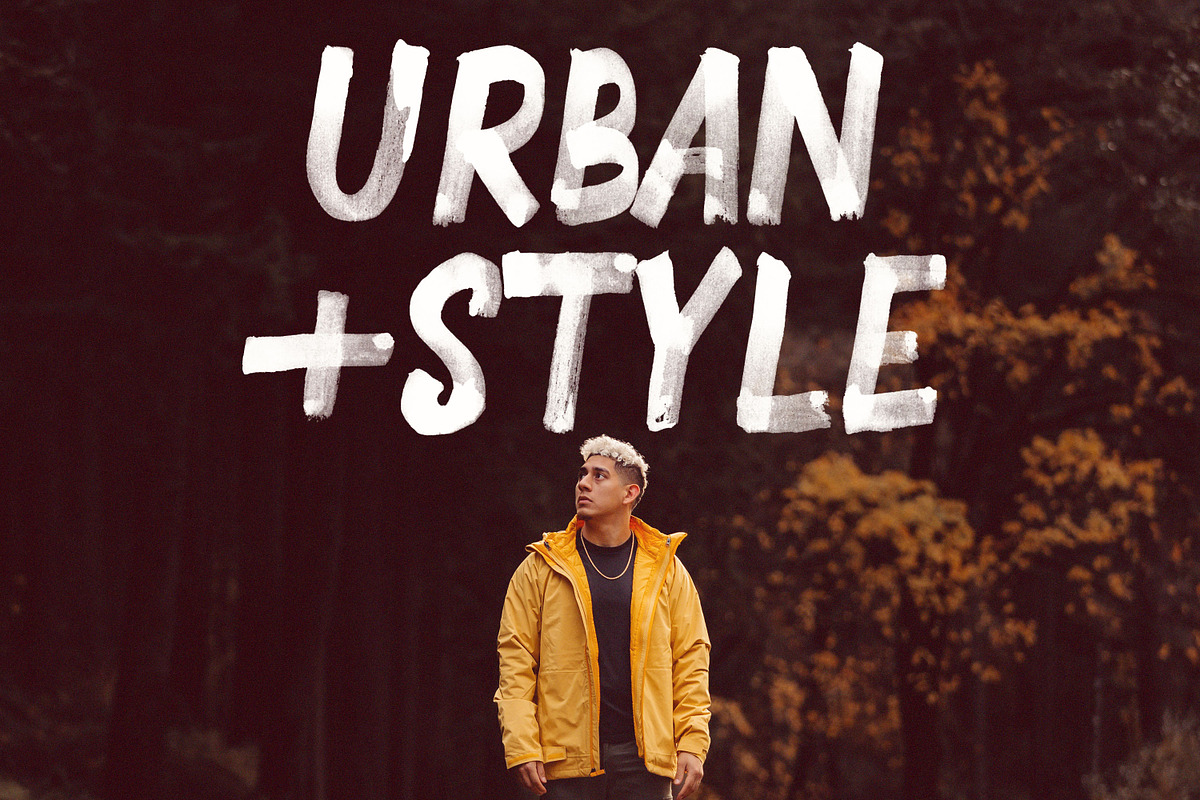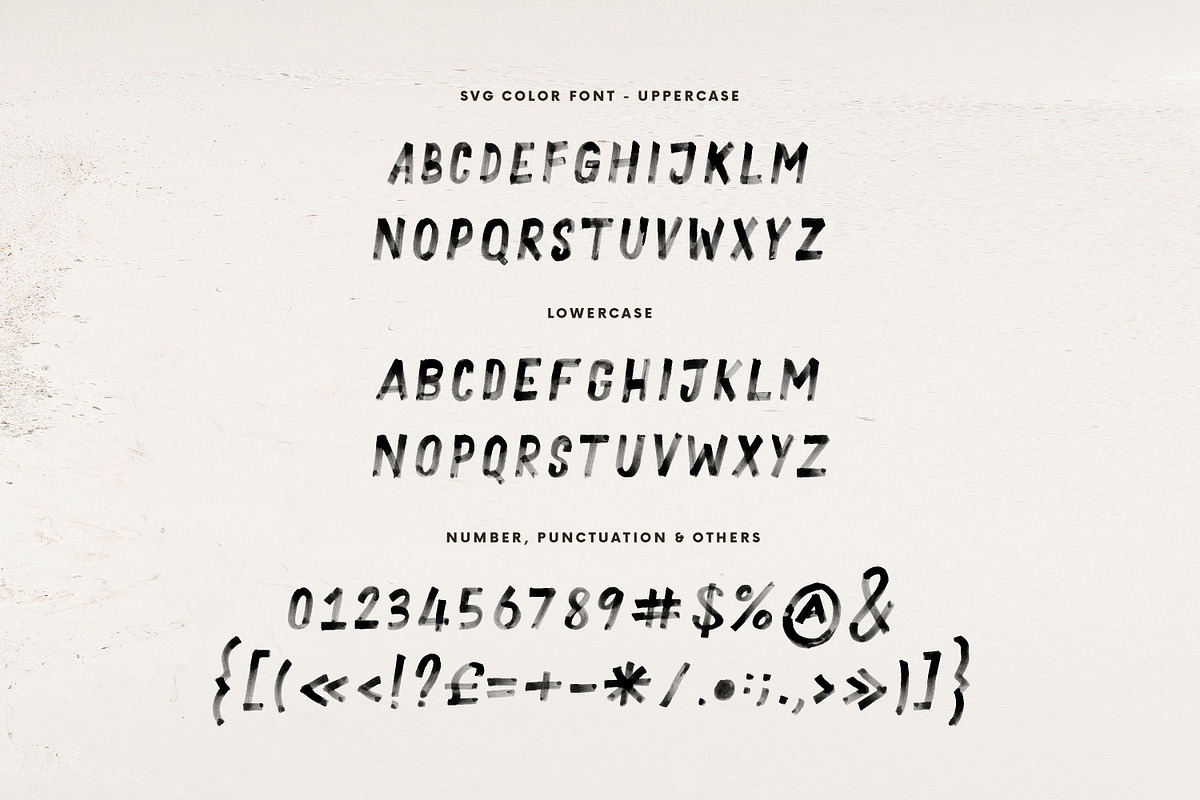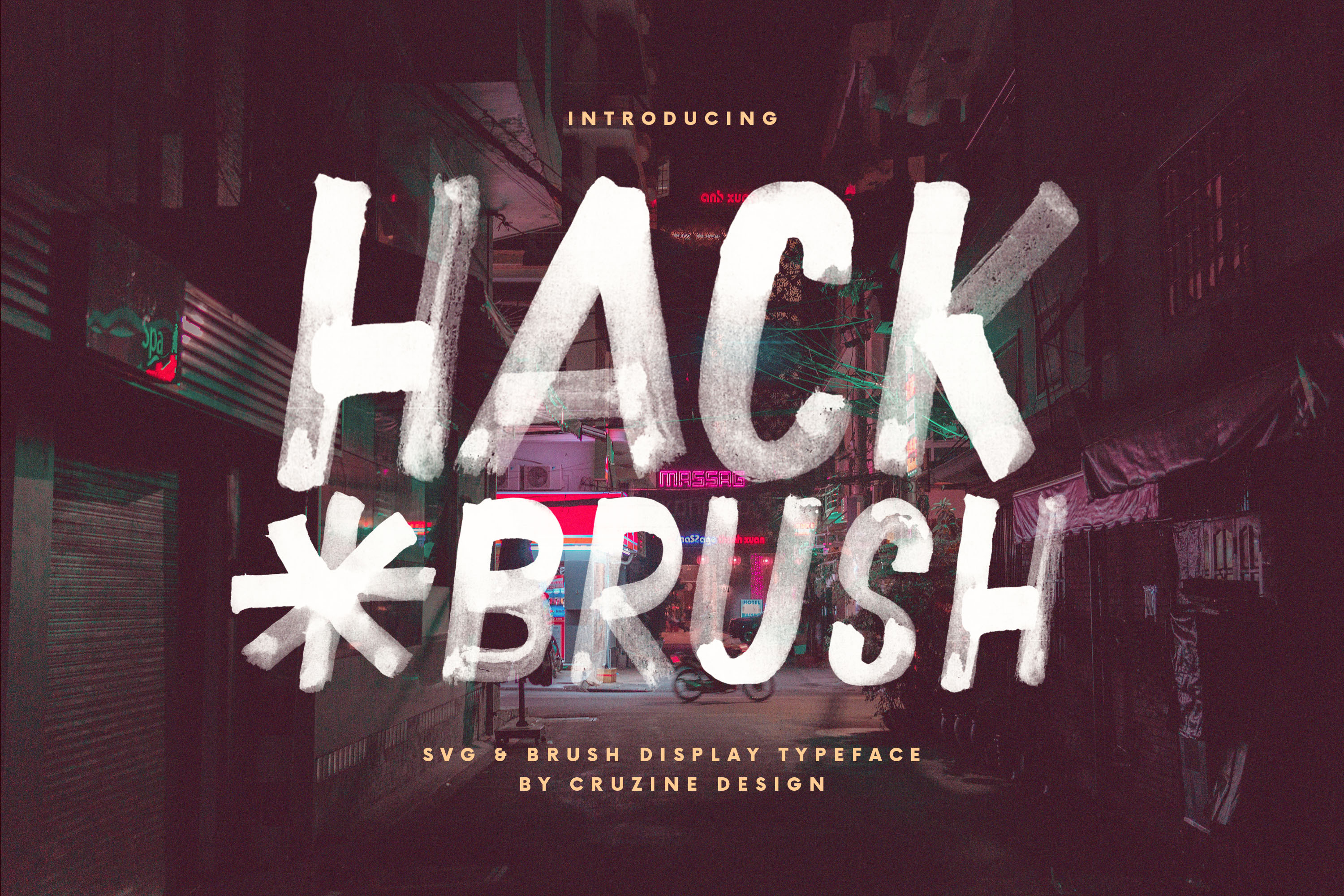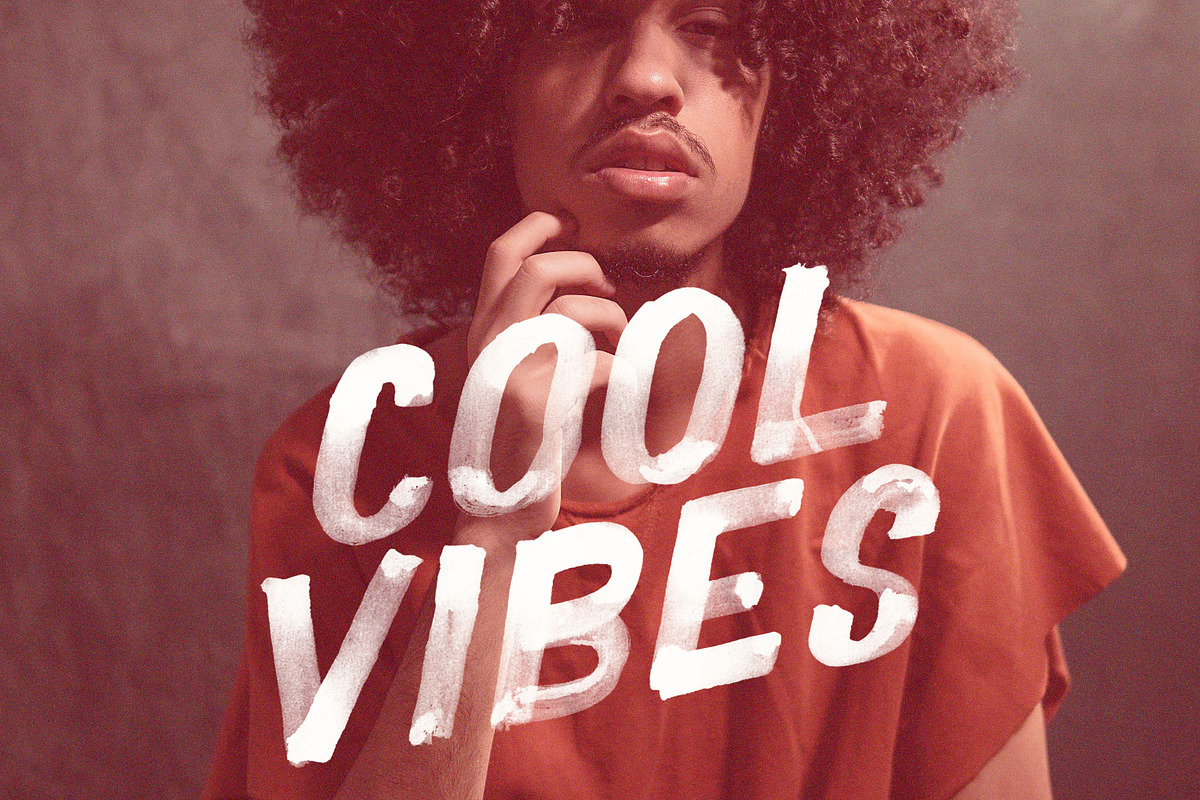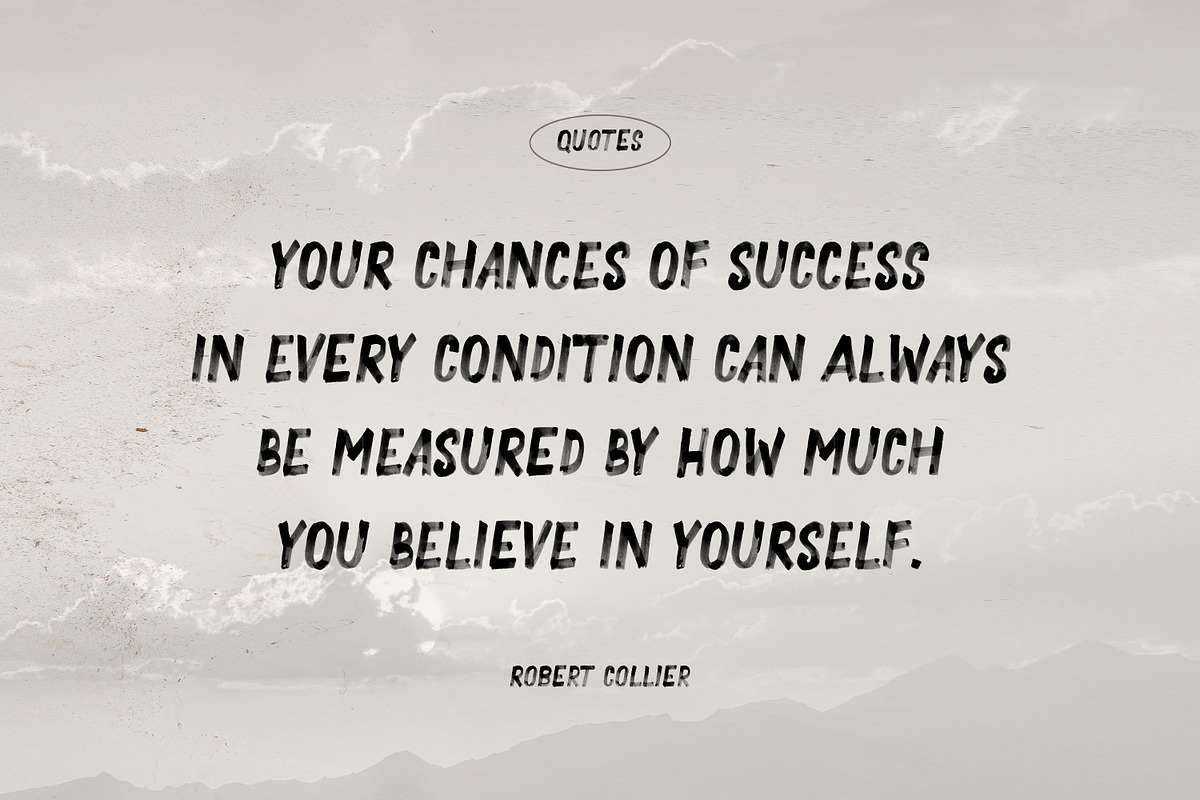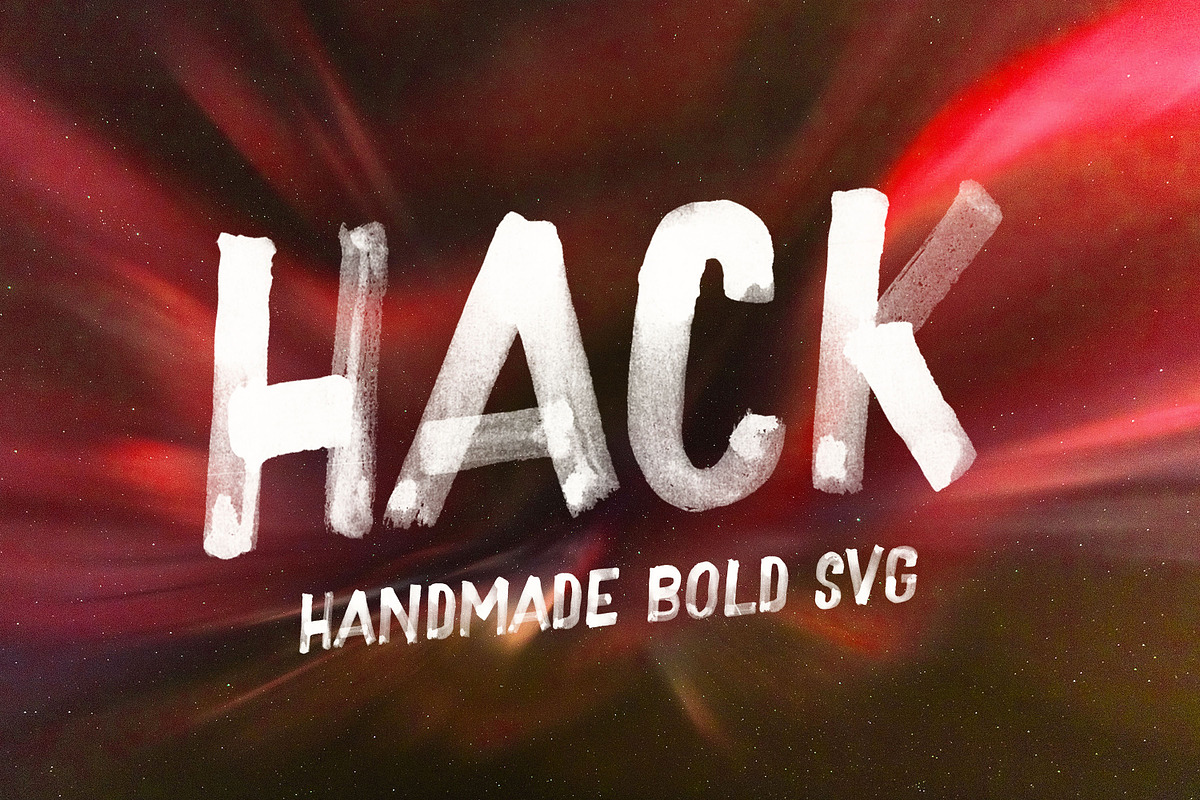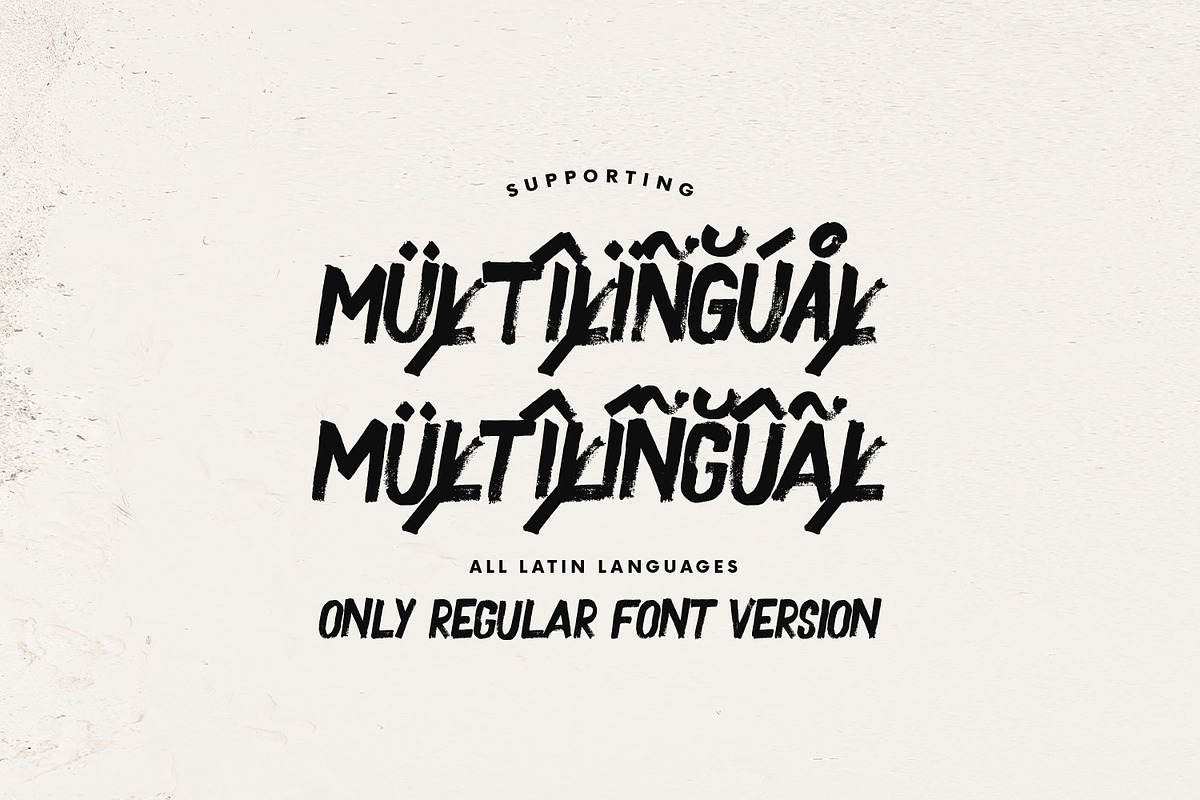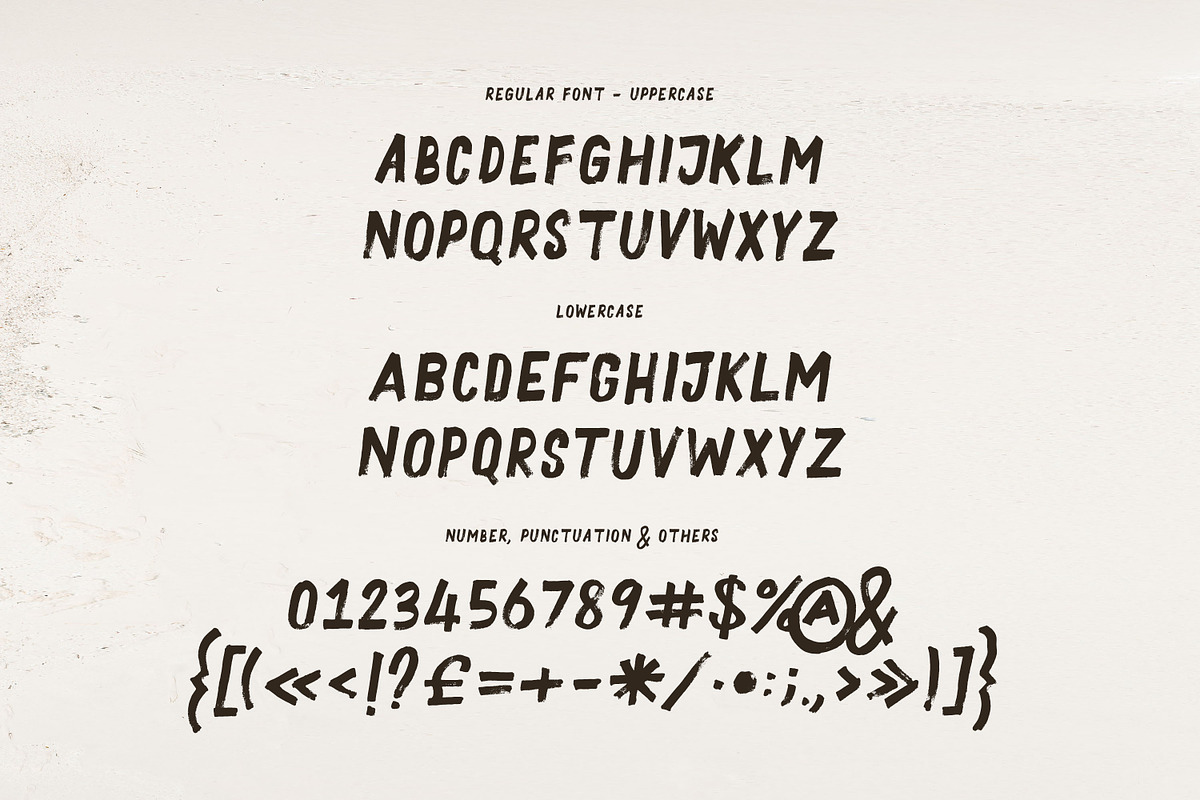
Hack Brush & SVG Font
Brush, rough or grunge style sans serif display font for your new projects. Handwritten with bold watercolor marker. Great for grunge, urban or artistic projects!